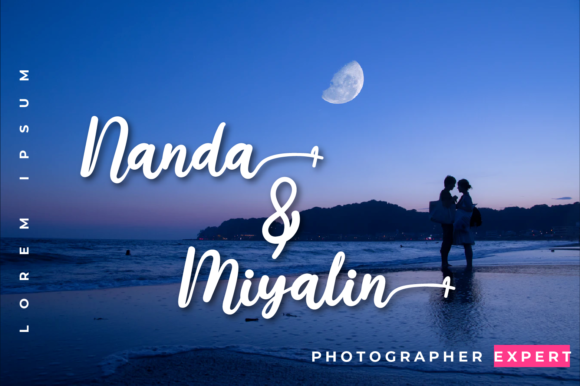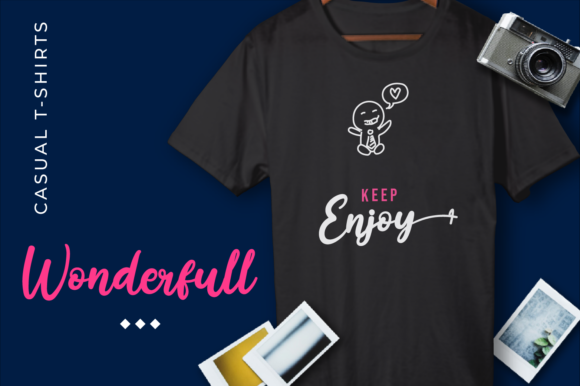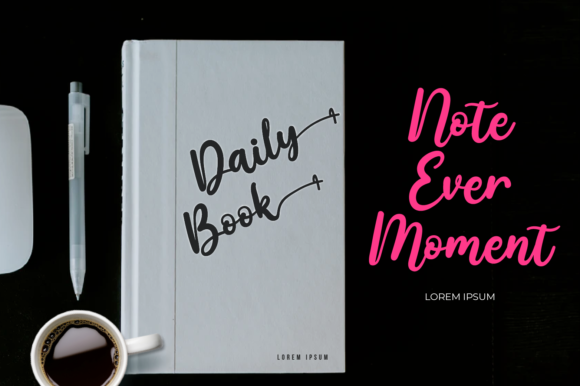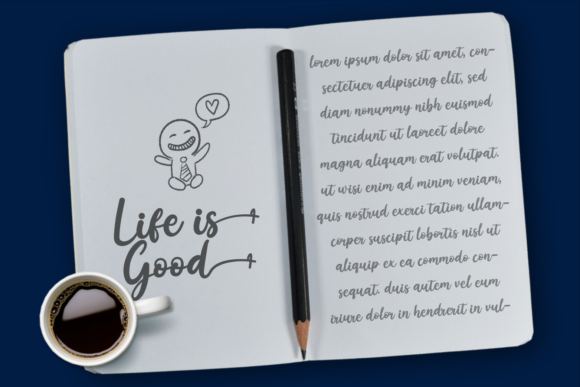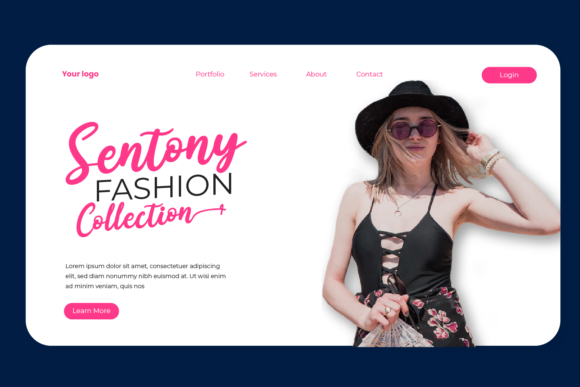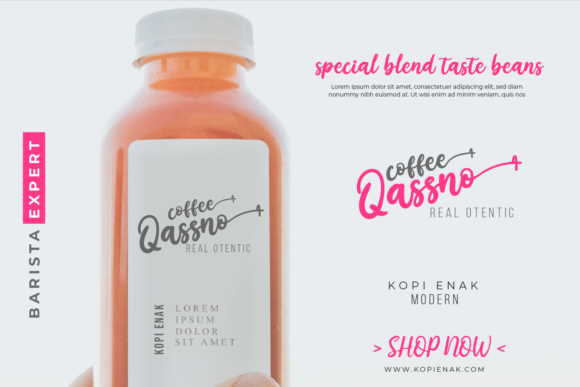
Afire Love Font: The Perfect Elegant Touch for Your Designs
Are you a designer or crafter looking for a font that exudes elegance and sophistication? Look no further than Afire Love, a beautiful flowing handwritten font that is sure to capture your heart. With its incredibly distinct and timeless style, Afire Love is perfect for adding a touch of romance and whimsy to your favorite projects.
What is Afire Love Font?
Afire Love is a carefully crafted handwritten font that boasts an elegant touch, making it ideal for a wide range of design applications. Whether you’re working on a logo, branding materials, social media graphics, or even a wedding invitation, Afire Love is sure to impress. Its unique and flowing style sets it apart from other fonts, making it a standout choice for designers and crafters who want to create something truly special.
Key Features of Afire Love Font
- Elegant and Sophisticated: Afire Love’s elegant touch makes it perfect for designs that require a level of sophistication and refinement.
- Flowing Handwritten Style: The font’s flowing handwritten style gives it a unique and personal feel that’s perfect for adding a touch of whimsy to your designs.
- Distinct and Timeless: Afire Love’s incredibly distinct and timeless style ensures that your designs will stand the test of time and remain stylish for years to come.
- Versatile: Afire Love is a versatile font that can be used for a wide range of design applications, from logos and branding materials to social media graphics and more.
Why Choose Afire Love Font?
So why choose Afire Love font for your next design project? Here are just a few reasons why this font stands out from the crowd:
- Unique Style: Afire Love’s unique style ensures that your designs will stand out from the crowd and grab attention.
- High-Quality: Afire Love is a high-quality font that is designed to produce crisp and clear results, even at small sizes.
Tips and Tricks for Using Afire Love Font
Here are some tips and tricks to help you get the most out of Afire Love font:
- Experiment with Sizes: Afire Love looks great at a range of sizes, from small and delicate to large and bold. Experiment with different sizes to find the one that works best for your design.
- Play with Colors: Afire Love looks great in a range of colors, from subtle pastels to bold brights. Experiment with different colors to find the one that works best for your design.
- Combine with Other Fonts: Afire Love pairs well with other fonts, particularly sans-serif fonts like Arial or Helvetica. Experiment with different font combinations to find the one that works best for your design.